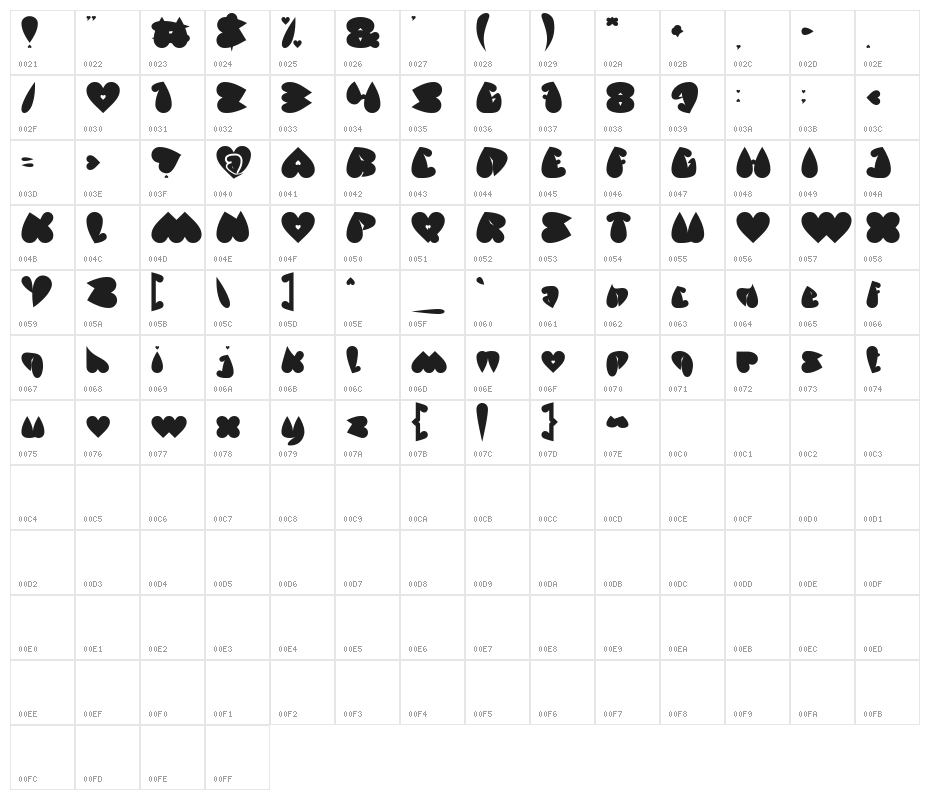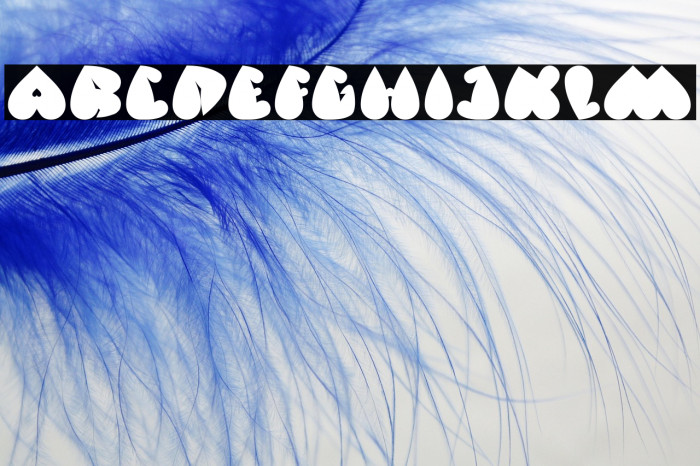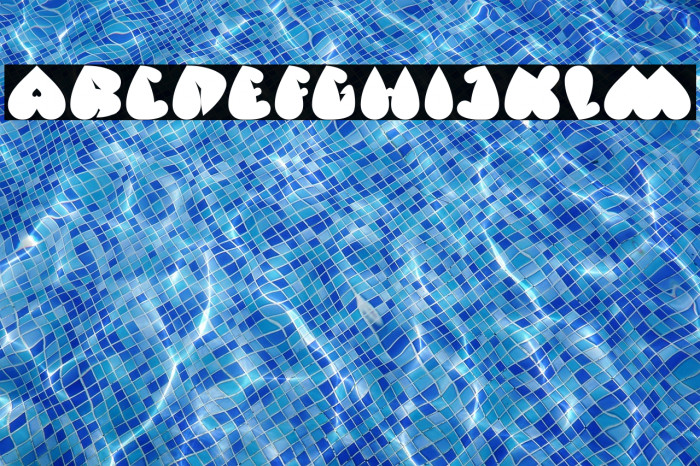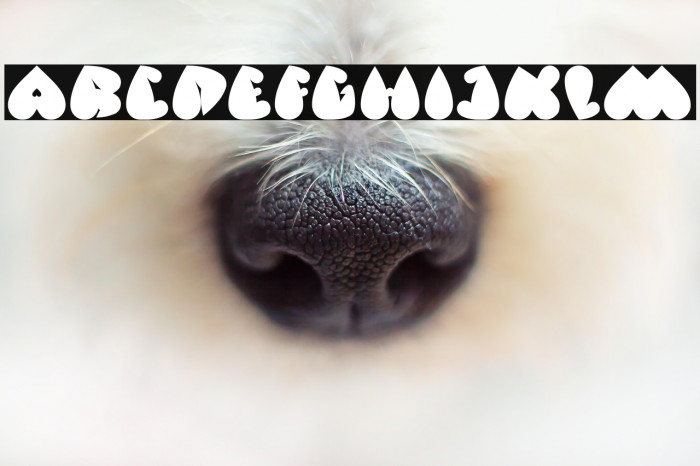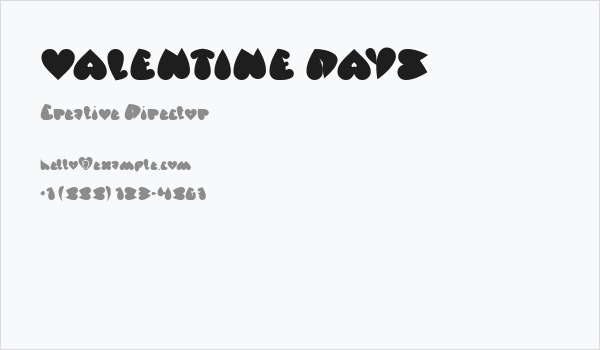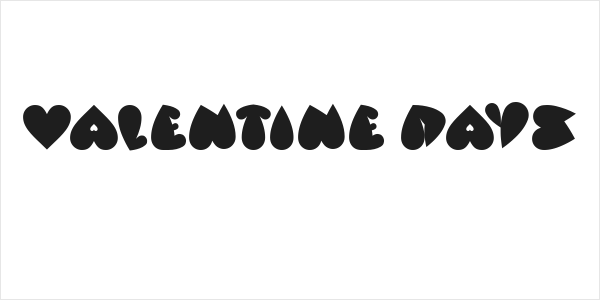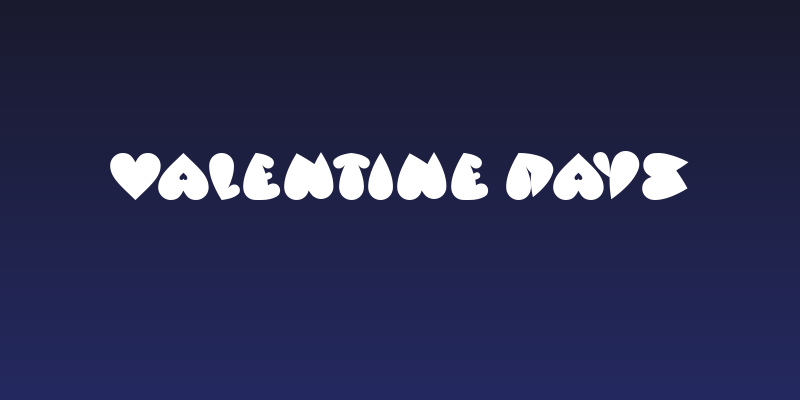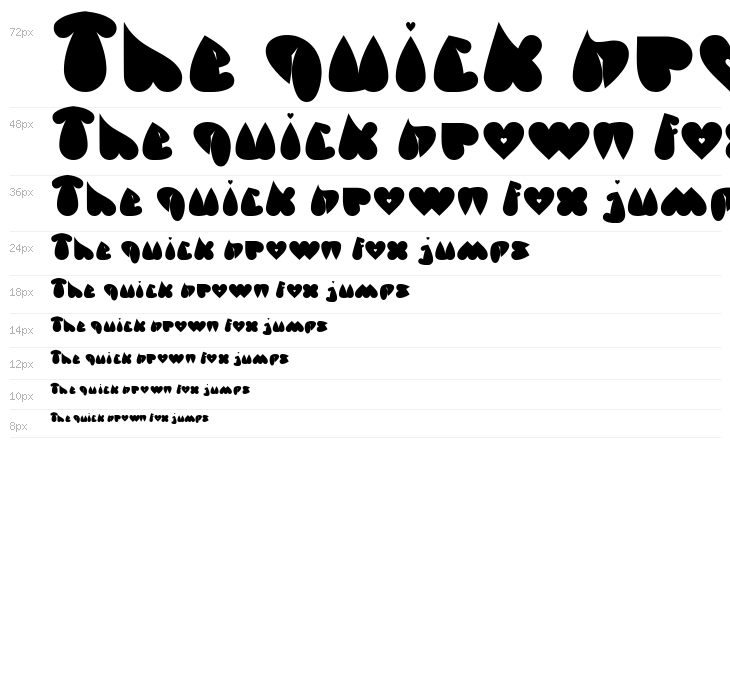
VALENTINE DAYS Font
VALENTINE DAYS Description
This playful and bold font features heart-shaped elements integrated into each character, creating a whimsical and romantic feel. The letters are rounded and full-bodied, with a consistent thickness that gives them a strong presence. The uppercase and lowercase letters maintain a cohesive style, while the numbers and special characters continue the heart motif, adding to the overall charm. This font is perfect for designs that aim to convey love, joy, and celebration, making it ideal for Valentine's Day themes or any romantic occasion.
| Overall Style | Playful and Romantic |
| Use Case | Headlines, Logos, Invitations |
| Proposed Projects | Ideal for Valentine's Day cards, wedding invitations, love-themed posters, and playful branding projects. |